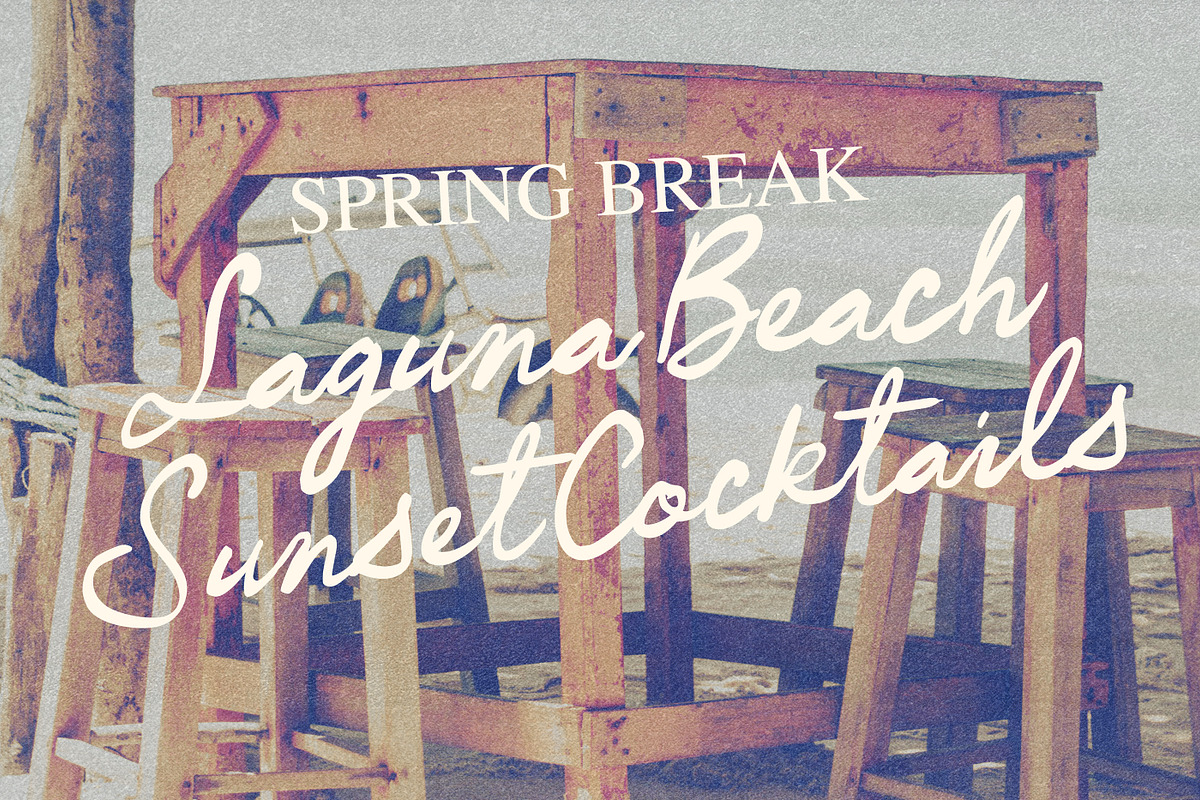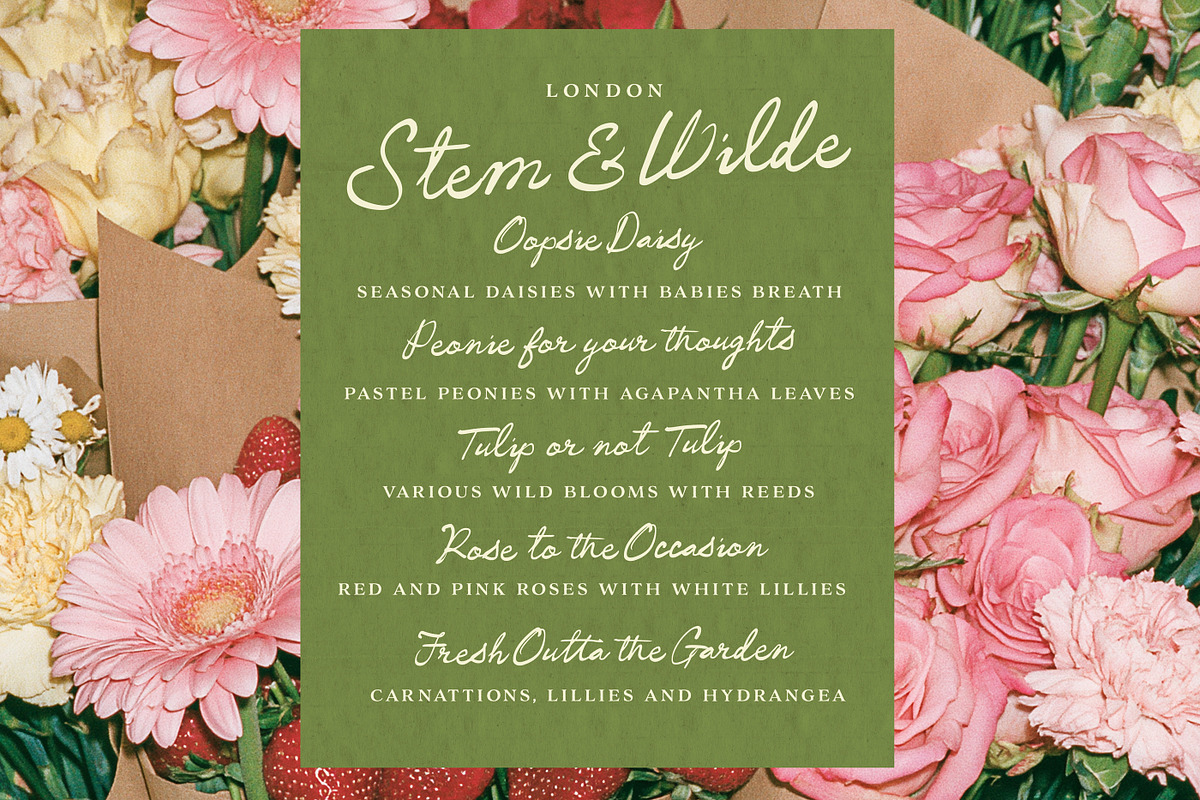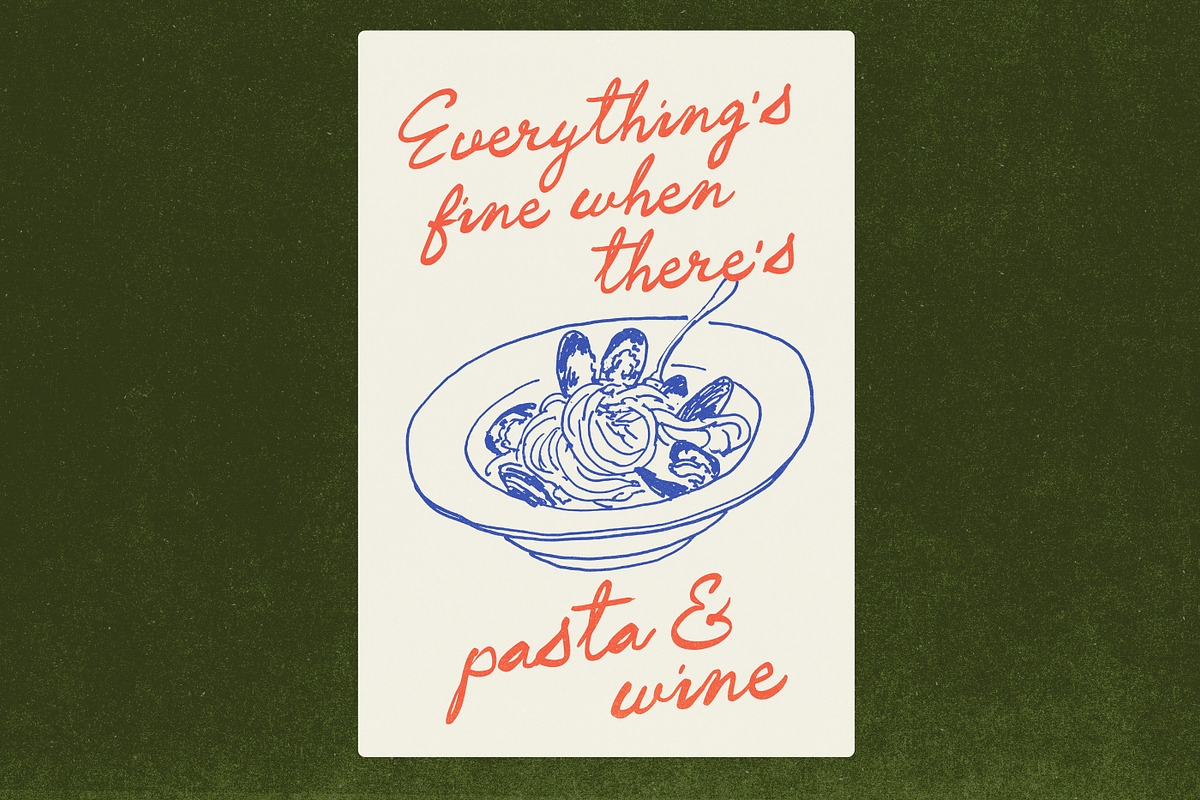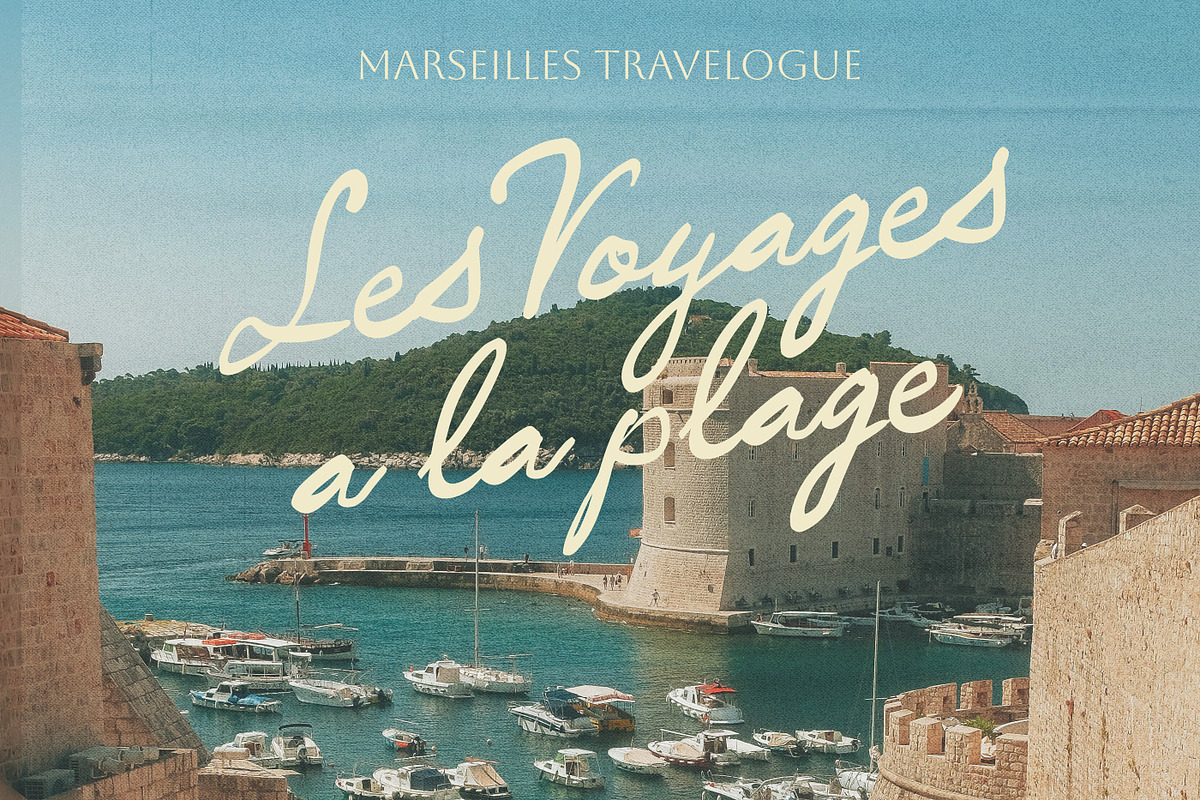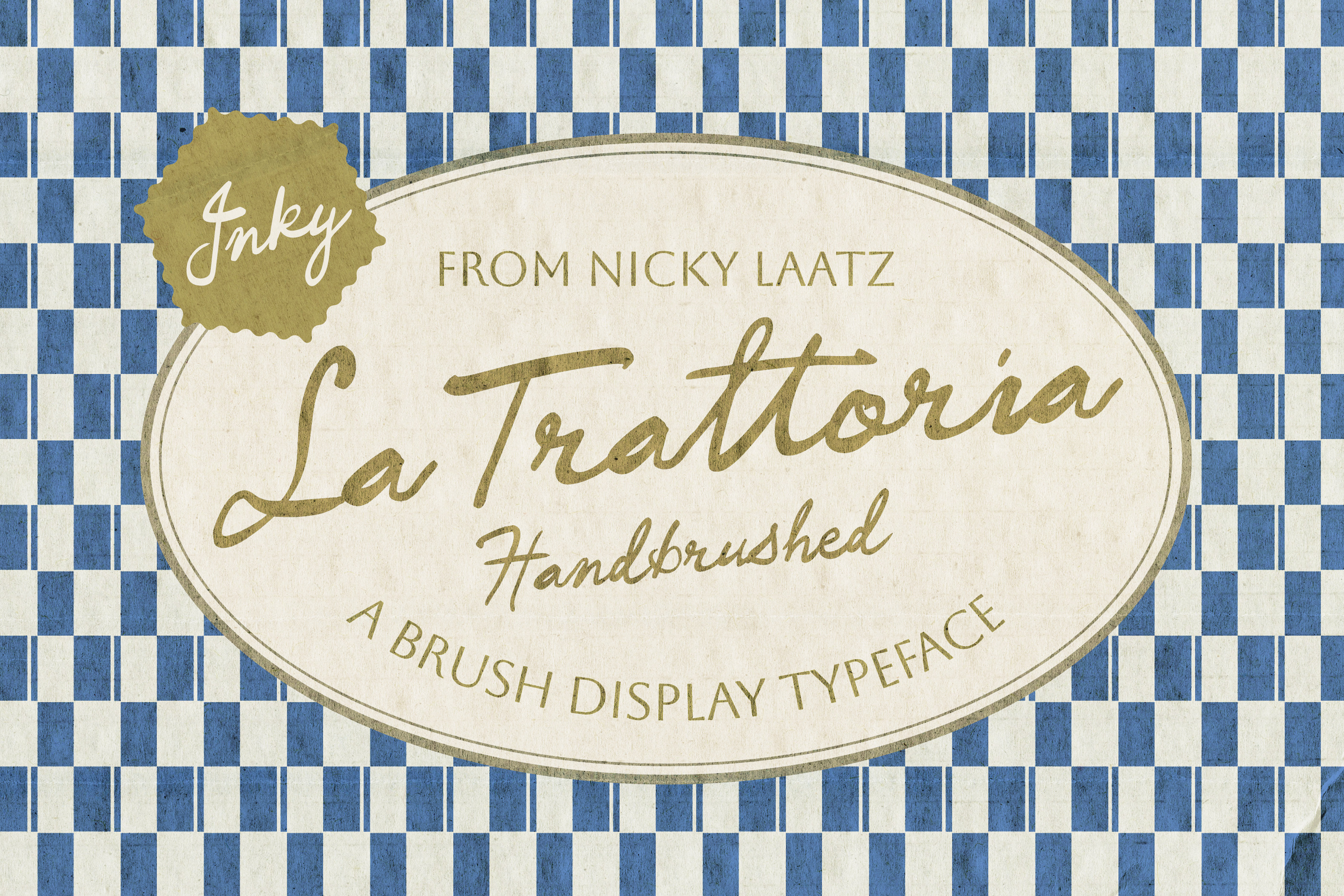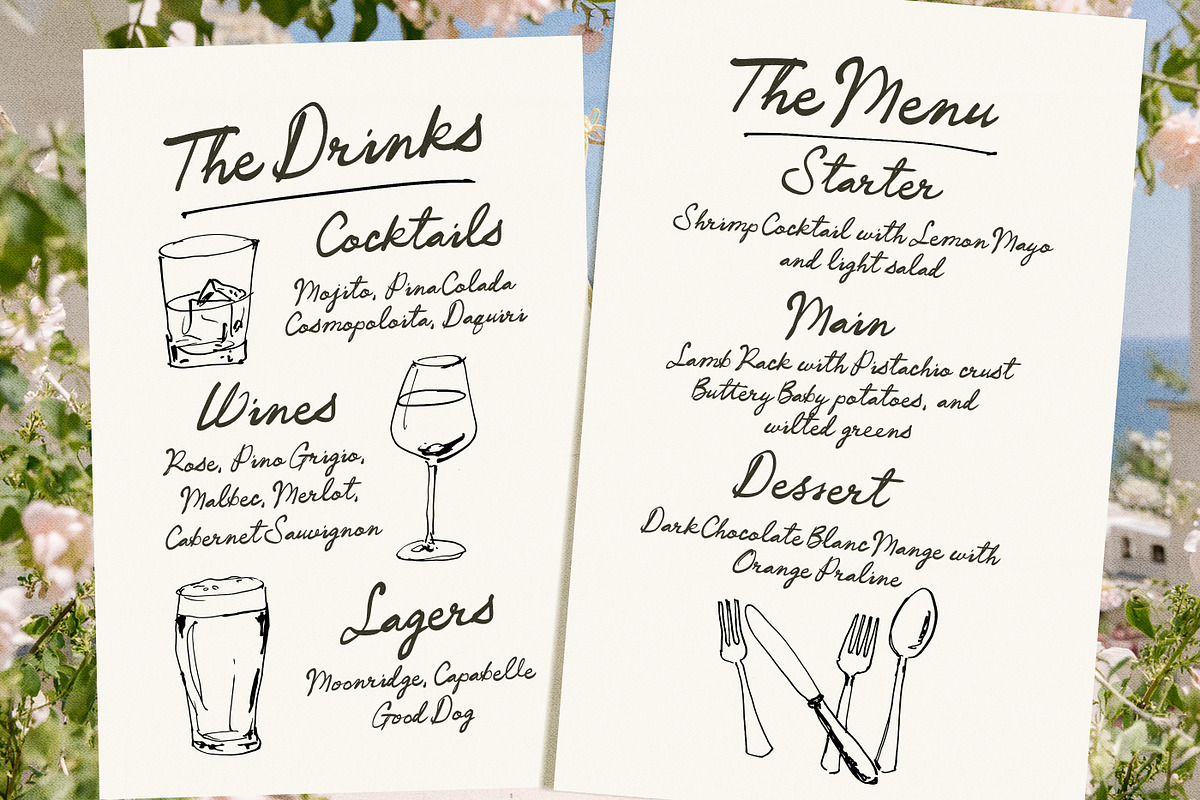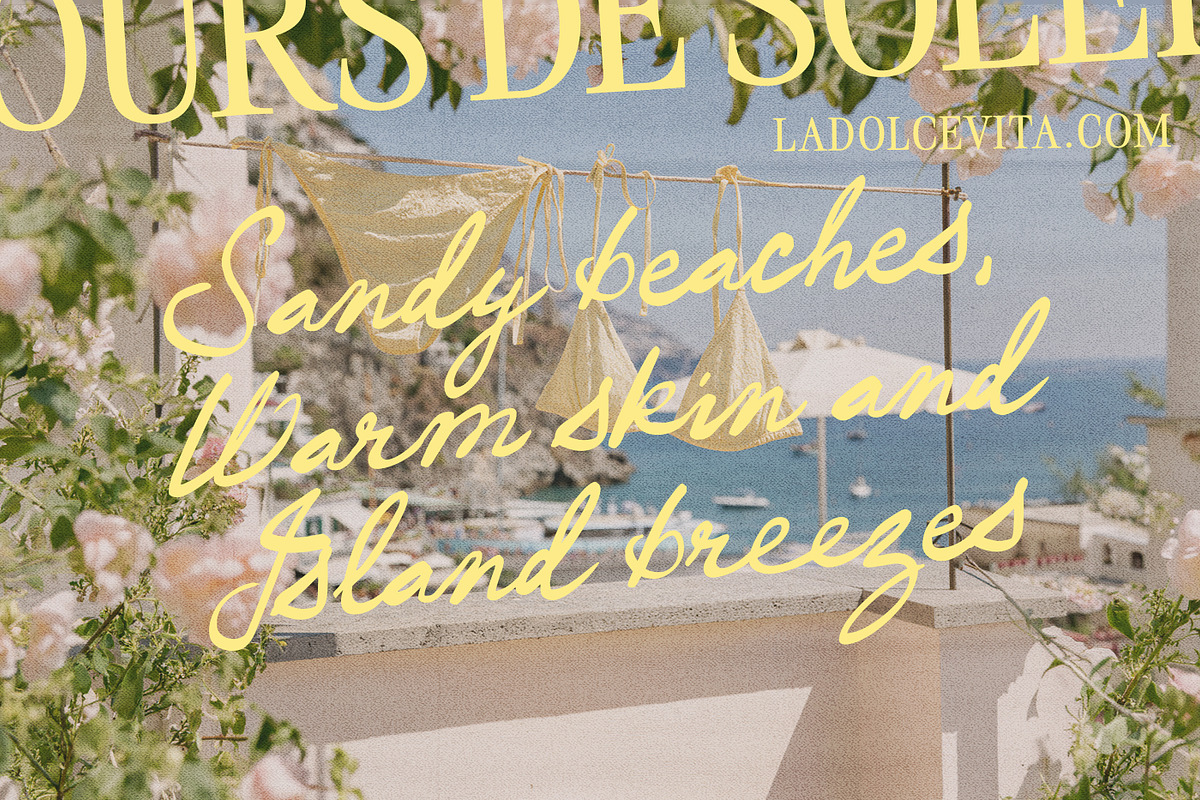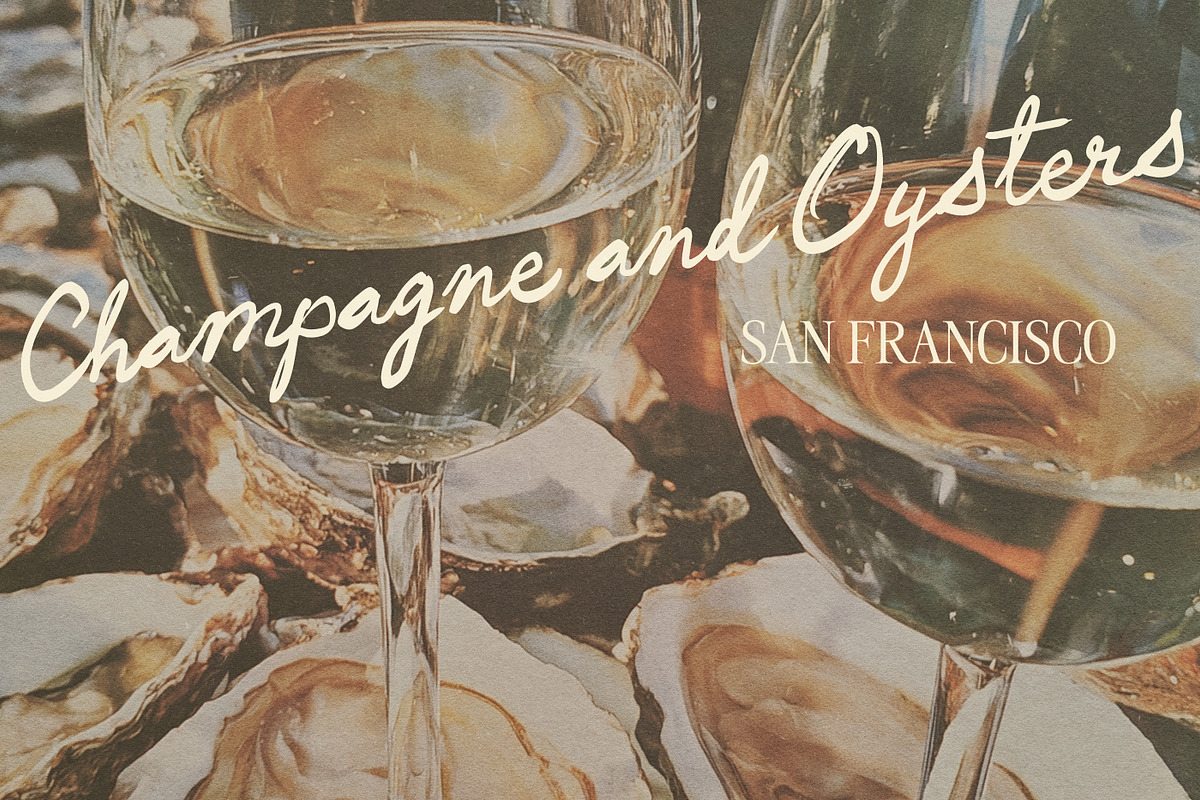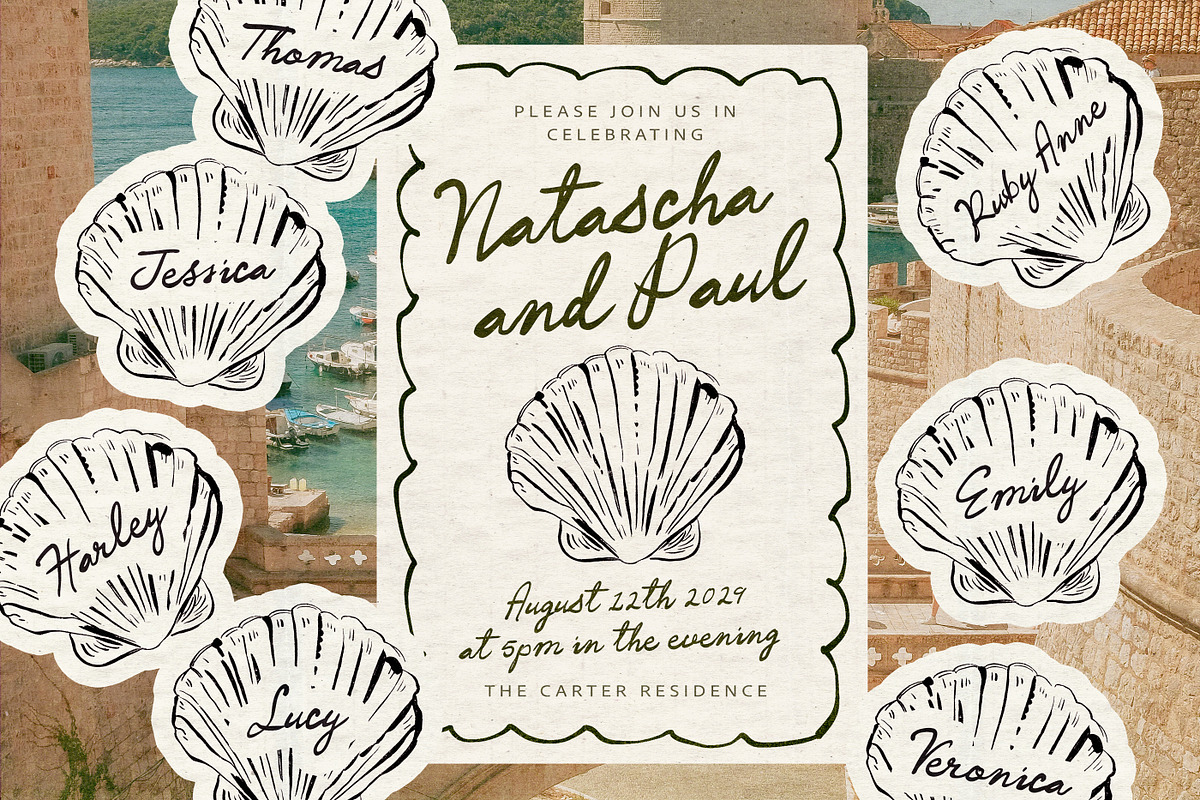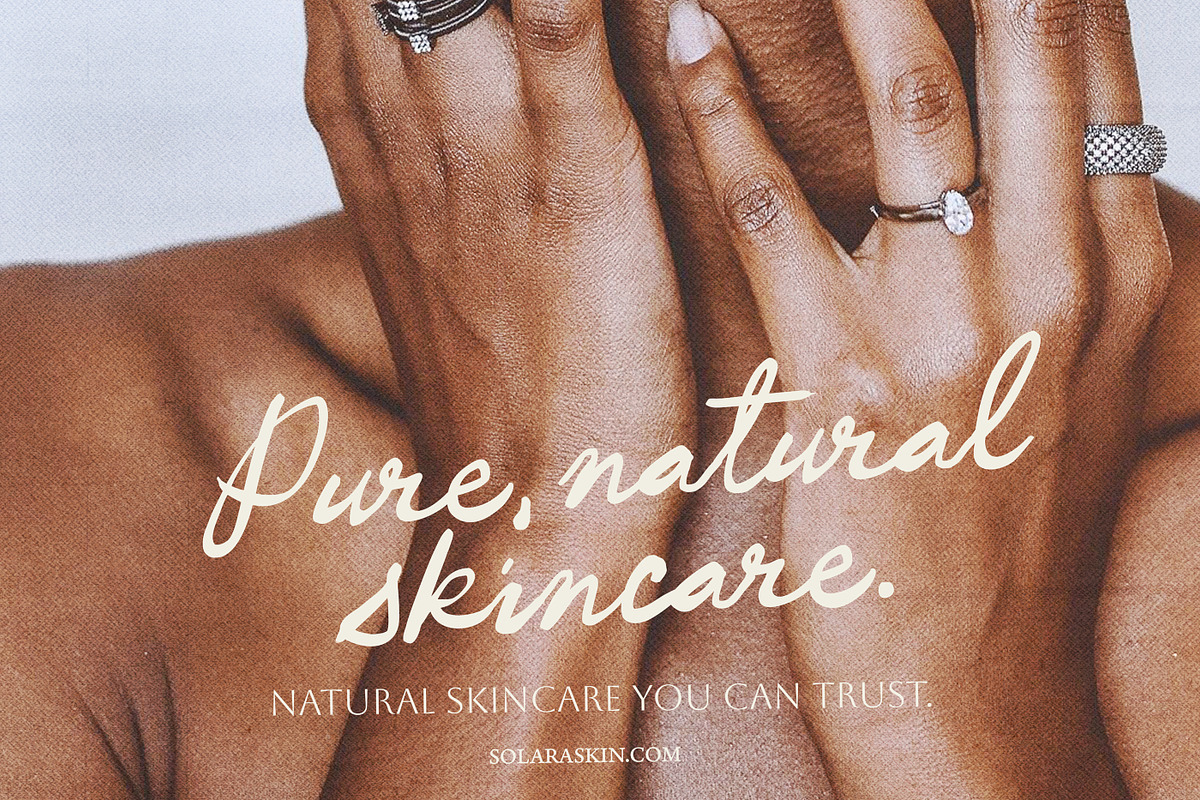
La Trattoria Brush Script Font
Say hello to La Trattoria — an inky, imperfect brush script designed to feel more like real handwriting than a font. Its unsteady letterforms, loose brushstrokes and naturally irregular shapes give it a wonderfully relaxed, hand-painted character.
Casual, expressive and intentionally imperfect, La Trattoria brings the warmth and spontaneity of putting brush to paper to your designs — perfect for branding, packaging, menus, editorial work and anywhere that calls for a little handmade charm.
La Trattoria includes a small selection of common opentype ligatures to make it look more natural as you type.